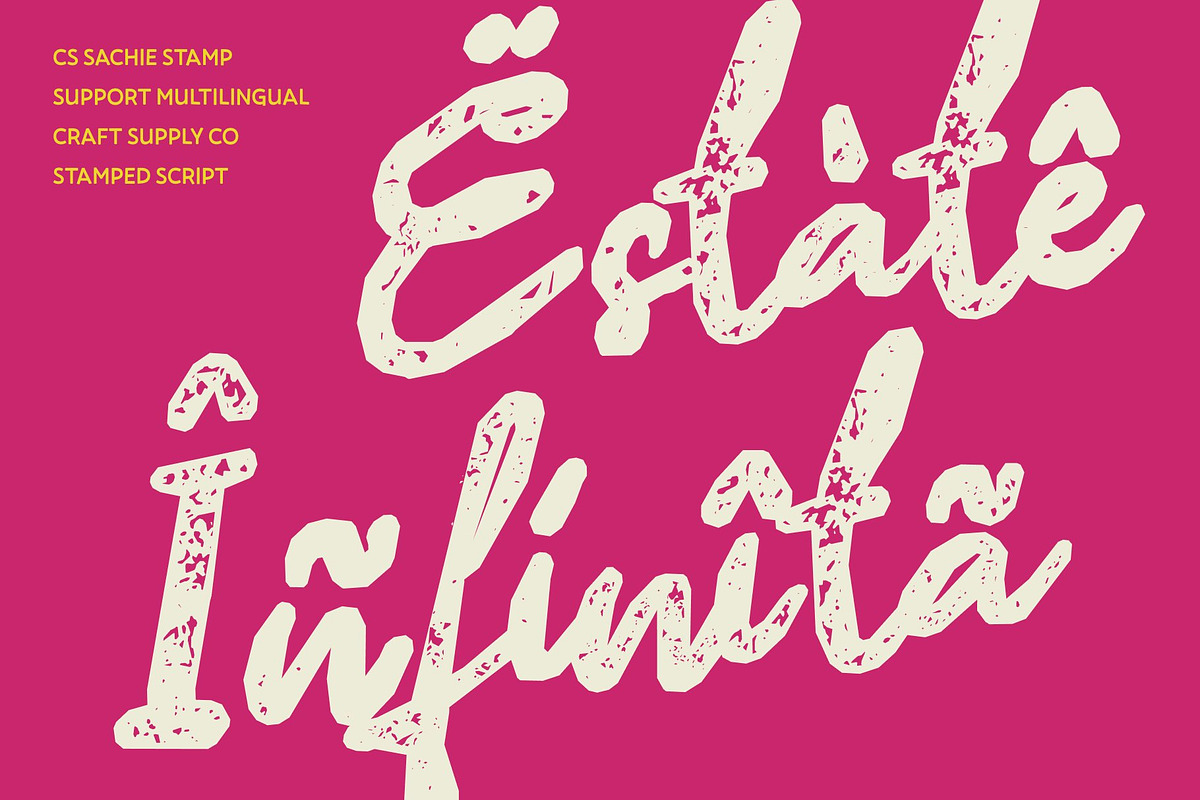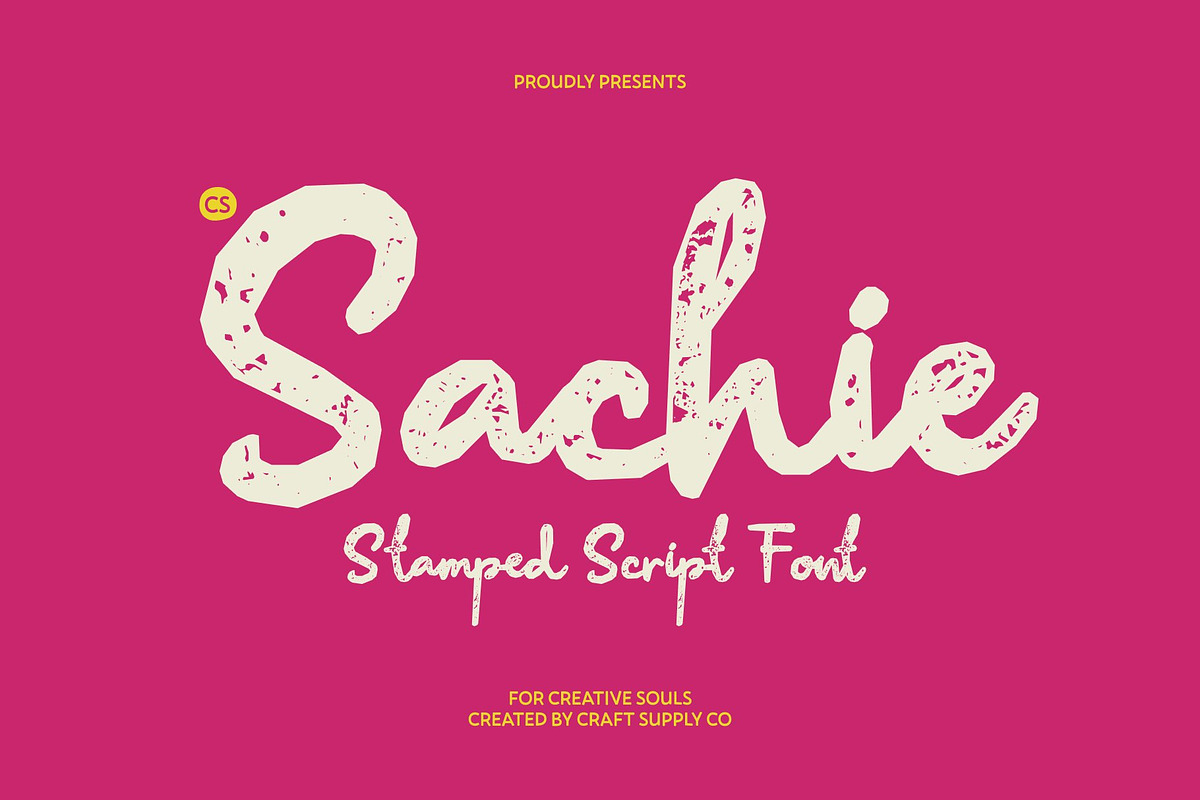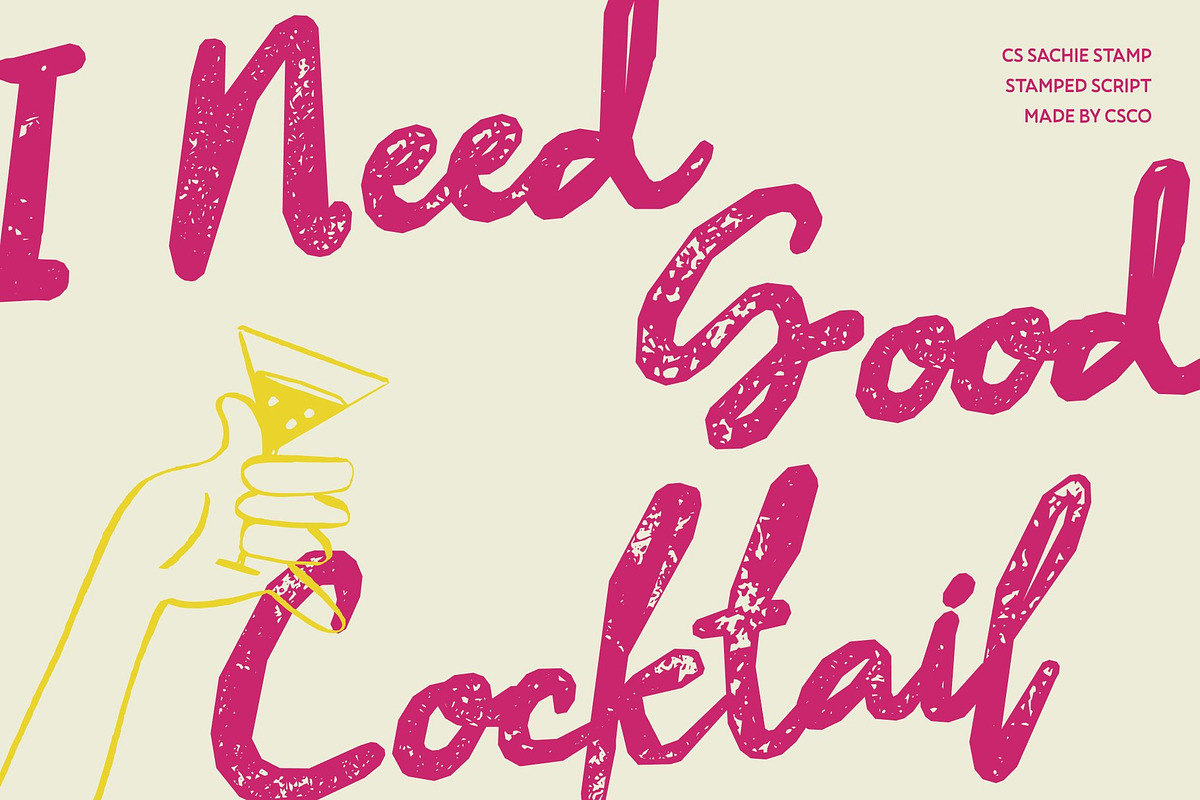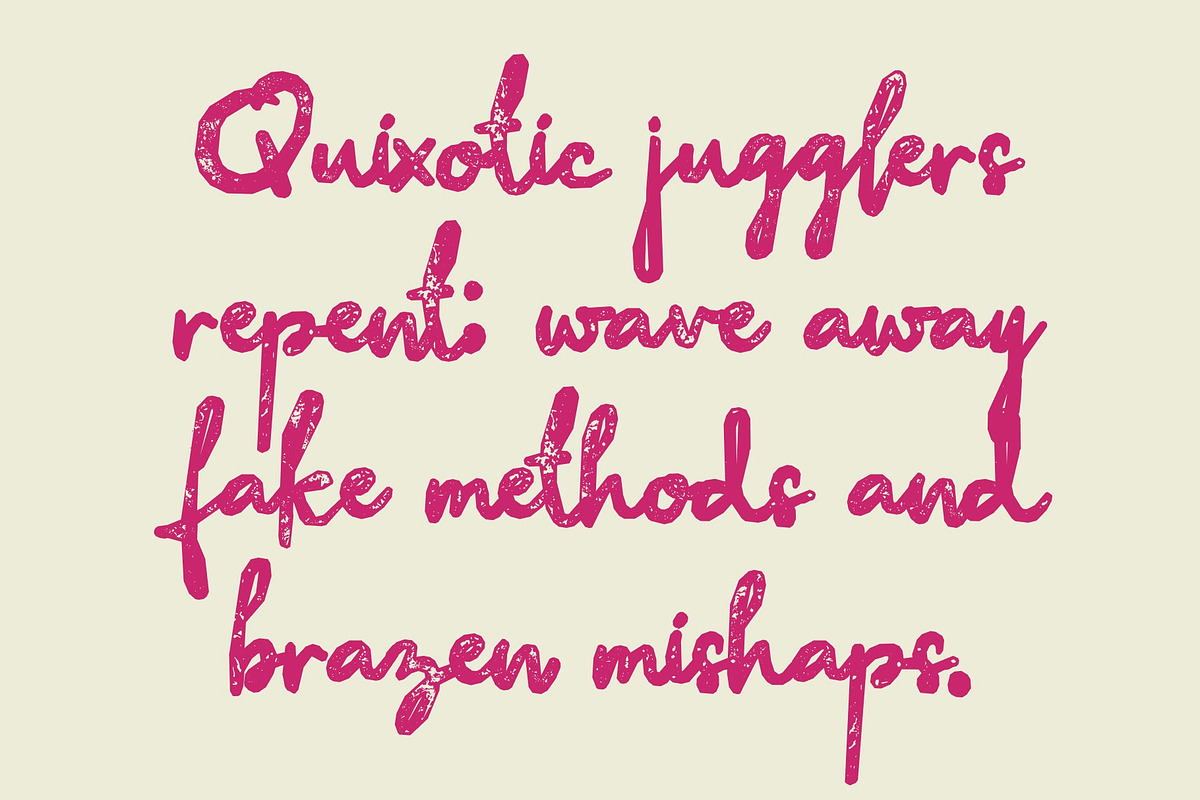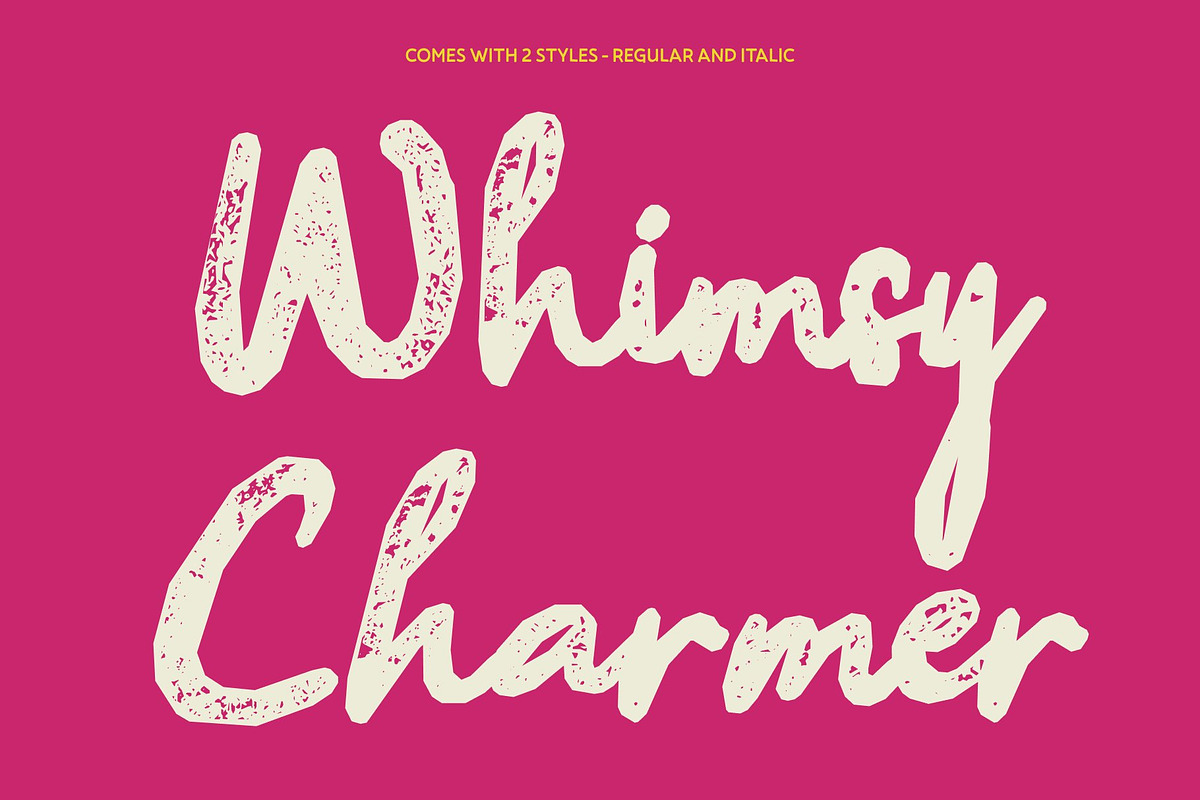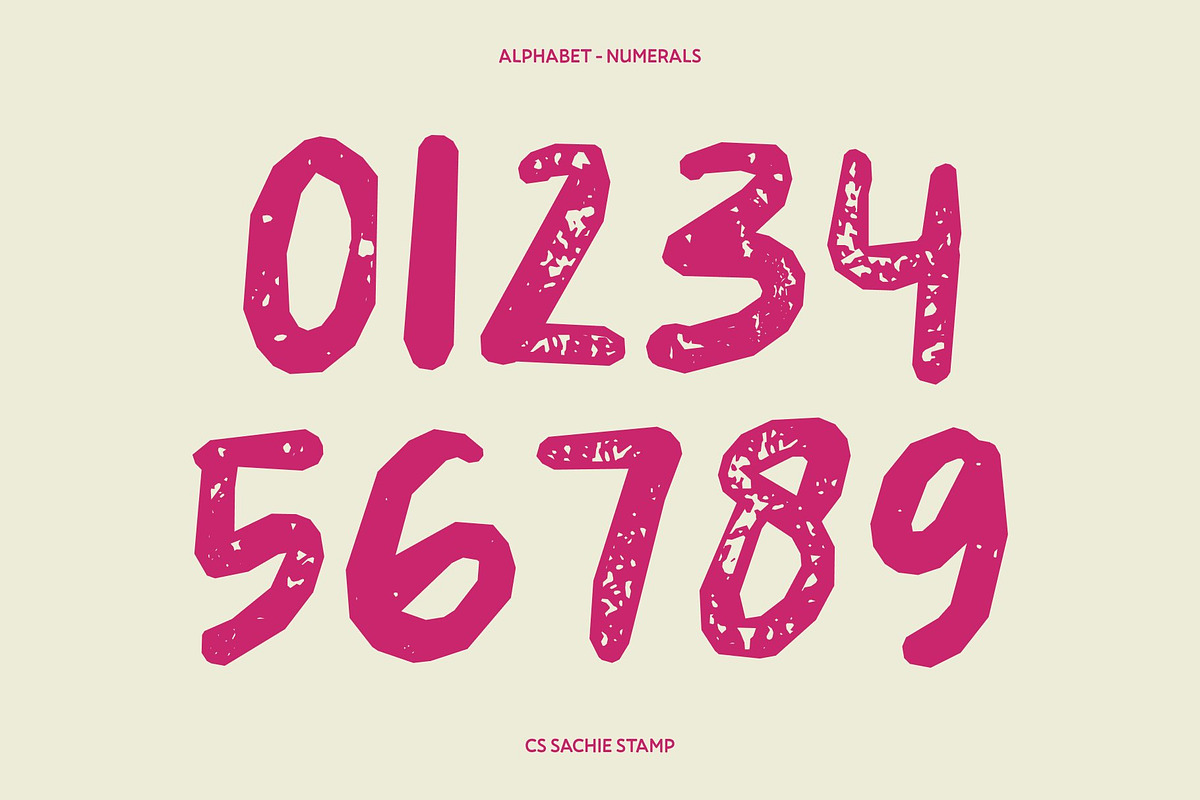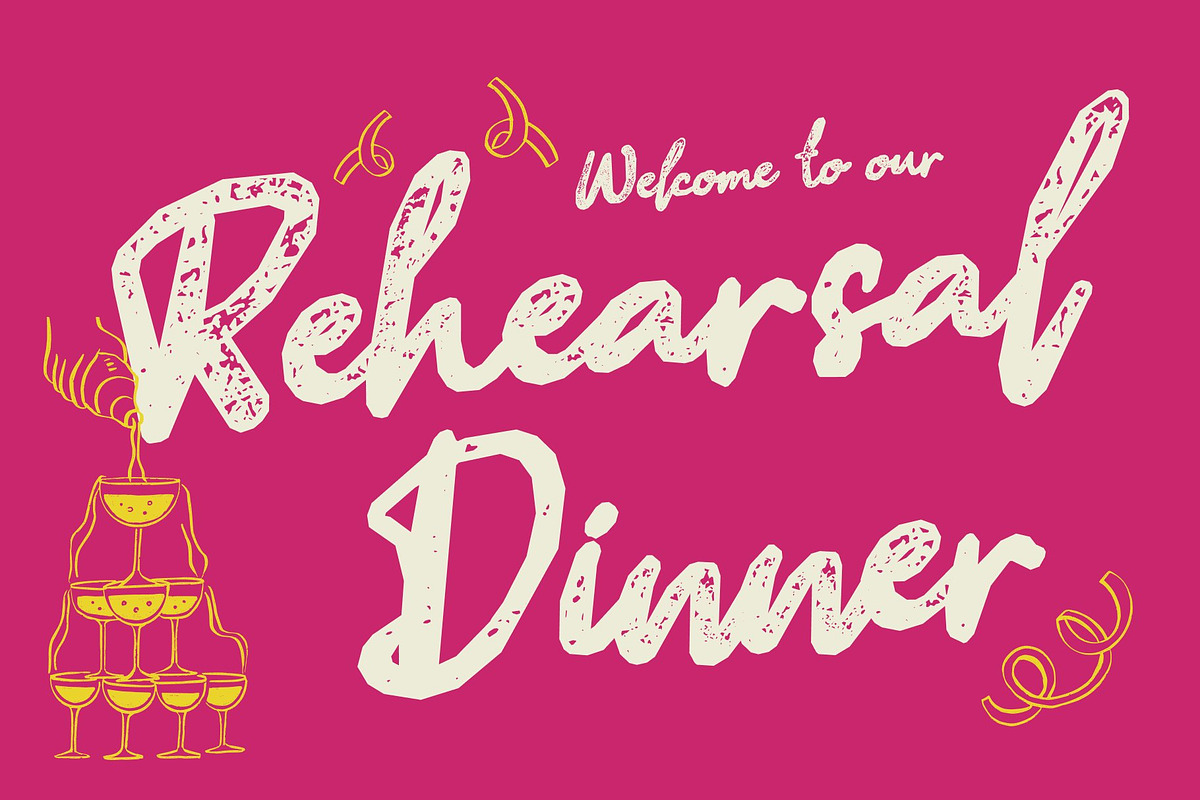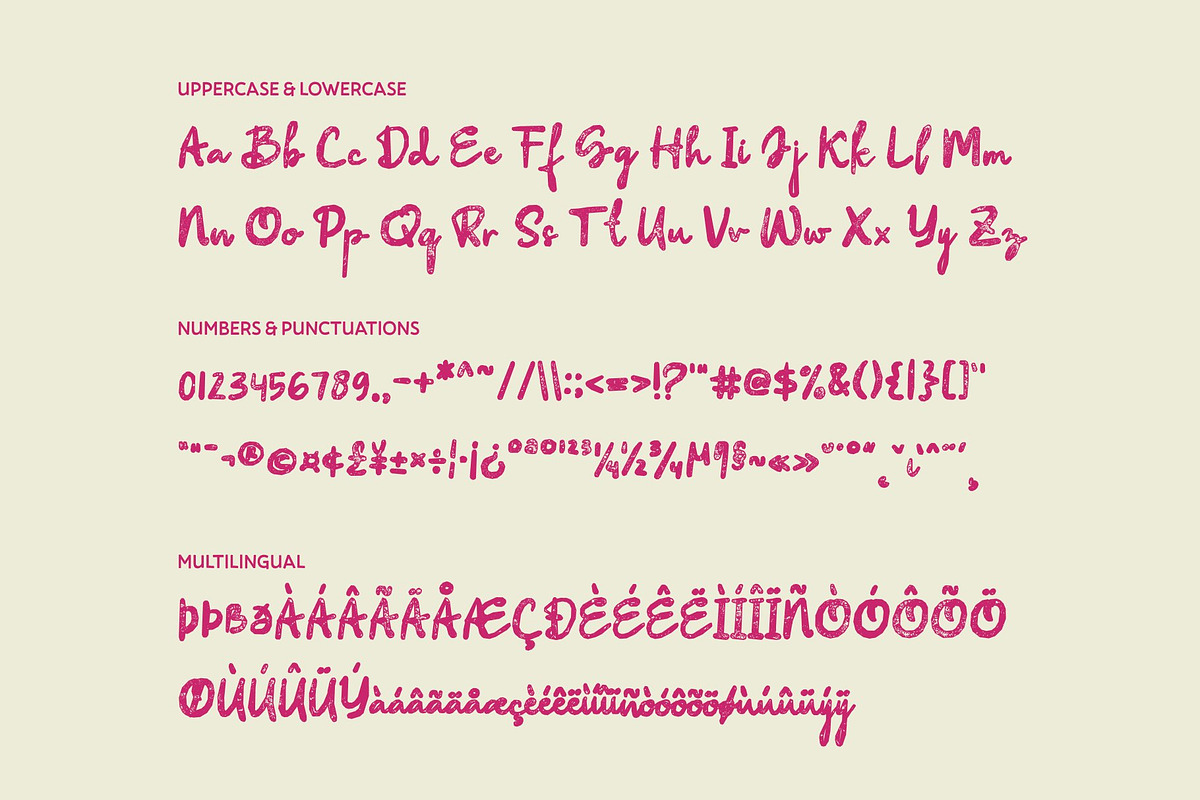
CS Sachie Stamp
Transport your audience to a golden era with CS Sachie Stamp, a chic script font designed to express delicacy, elegance, and individuality through every flowing stroke. Each letterform feels light and refined, carefully crafted to create a graceful rhythm that enhances visual appeal and brings a sense of artistry and sophistication to your work.
Drawing inspiration from classic printing methods, this smooth cursive style features a distinctive stamp effect that gives the font vintage characters, an artistic texture, and a charming old design. Each intentional flourish enhances the natural movement of the script, achieving a unique visual depth that feels both personal and deeply tactile on any surface.
This warm and inviting design is exceptionally well-suited for elegant and romantic projects, bespoke wedding invitations, artisanal branding, fashion logos, and bohemian editorial layouts. Its fine-lined strokes and expressive letterforms demand a soulful, human touch, offering a versatile tool that feels entirely alive and full of nostalgic charm.
Bring distinctive texture to your next creative venture by letting these undulating glyphs guide your visual narrative. Whether you are building an independent lifestyle brand or designing memorable event graphics, CS Sachie Stamp delivers an effortless blend of historic storytelling and contemporary appeal that leaves a lasting impression on every application.
CS Sachie Stamp Regular
CS Sachie Stamp Italic